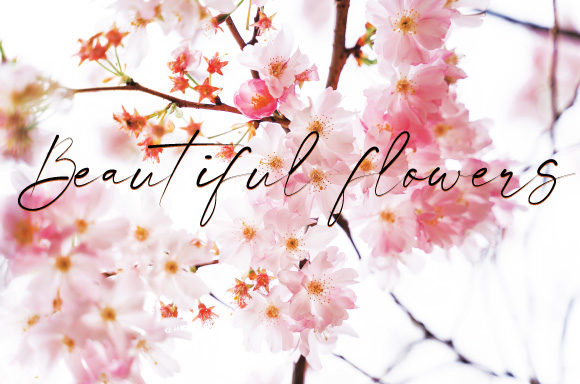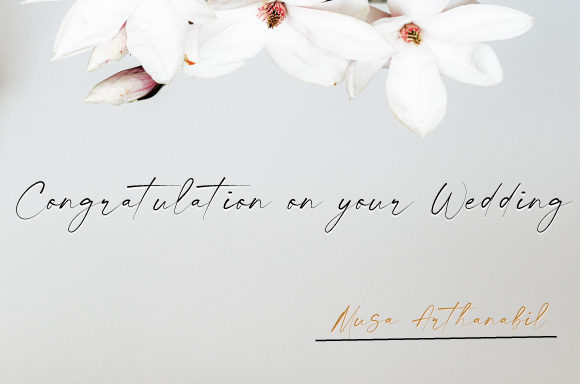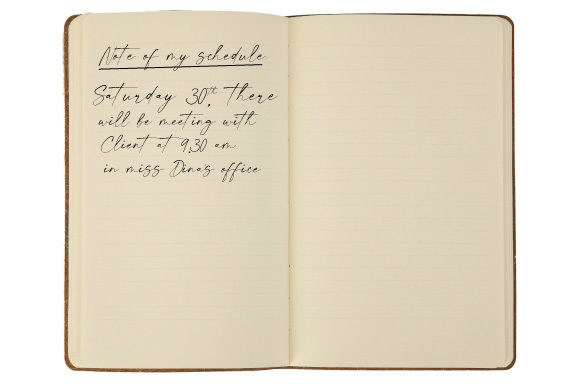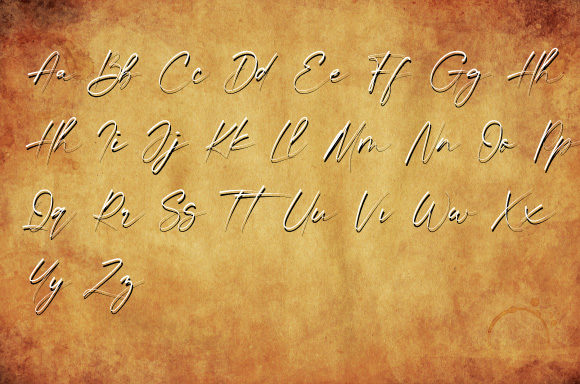
Honeymoon Font
About Honeymoon Font
Honeymoon is a stylish and modern handwritten font. Not too thin and not too thick, balanced and varied, Honeymoon was designed to enhance the beauty of your projects.